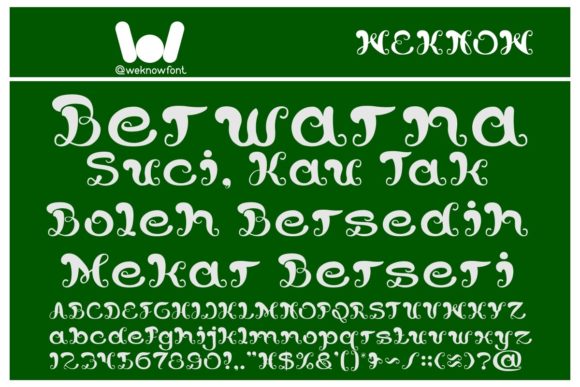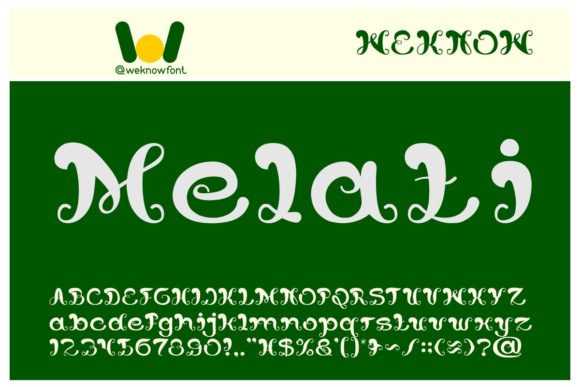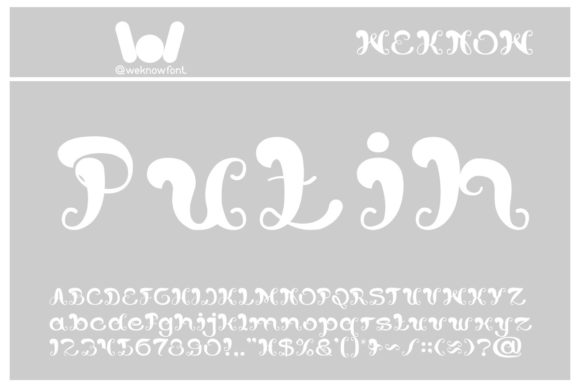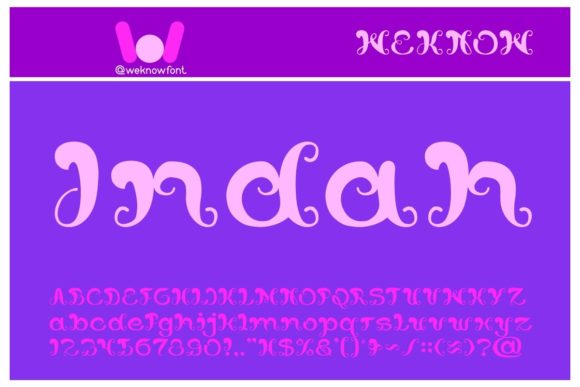
Have you ever stared at a blank page, waiting for that elusive spark of creativity to strike? The blank canvas can be intimidating, but it’s also an opportunity to let your imagination run wild. For many designers, that spark comes from discovering the perfect font to bring their vision to life. If you’re looking for a way to add a touch of whimsy and elegance to your designs, you’re in luck.
Bunga Font is a chic and versatile display font that’s perfect for adding a playful twist to your creative projects. Its unique design makes it easy to match with a wide range of styles, from modern to vintage, and everything in between. Whether you’re designing a logo, a poster, or a social media campaign, Bunga Font is a valuable addition to your toolkit.
Bunga Font Key Features
- Font Family: Bunga Font is a unique, hand-drawn font family designed to evoke a sense of natural beauty and elegance. It is available in multiple weights, from light to bold.
- Character Set: The font includes a comprehensive character set, covering Latin, Cyrillic, and Greek alphabets, as well as a range of punctuation and symbol glyphs.
- Unique Characteristics: The font’s distinctive, hand-drawn feel and subtle organic texture give it a one-of-a-kind appearance that is perfect for creative projects and branding applications.
Bunga Font Review
Overall, I’m quite impressed with the Bunga Font. It’s a beautiful, handwritten font that’s perfect for creating eye-catching and unique designs. ✨ The font’s irregularities and imperfections give it a natural, hand-drawn feel that’s hard to replicate with other fonts.
The Bunga Font is ideal for projects that require a touch of personality and whimsy. It’s perfect for use in logos, social media graphics, and other marketing materials where you want to stand out from the crowd. ✨ The font is also highly legible, making it suitable for body text and other large blocks of text.
- ⚠️ The Bunga Font can be quite busy, which may make it difficult to read in certain situations. This is especially true when used in small sizes or on low-resolution screens.
- ⚠️ The font’s irregularities can also make it challenging to pair with other fonts. You may need to experiment with different combinations to find the perfect match.
Despite its limitations, the Bunga Font is a great addition to any designer’s toolkit. With a little creativity and experimentation, you can unlock its full potential and create stunning designs that really pop.
Tips for Getting the Most Out of Bunga Font
To get the most out of Bunga Font, use it for:
- Floral-inspired designs
- Botanical illustrations
Remember to pair Bunga Font with complementary colors and design elements to create a visually appealing design.